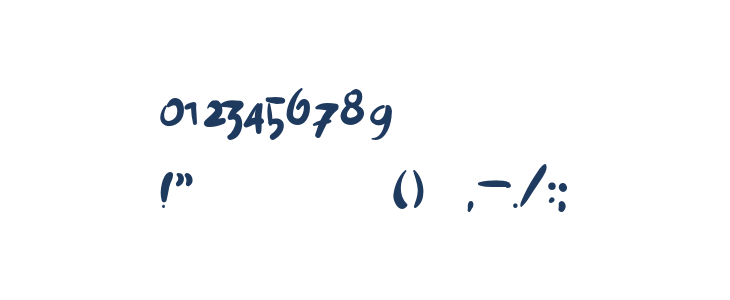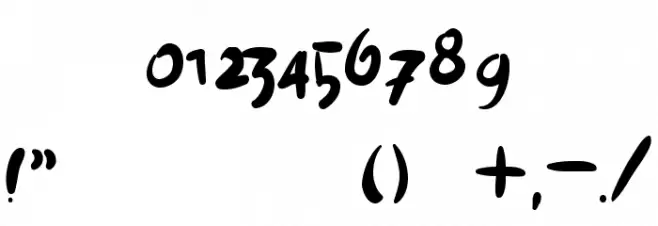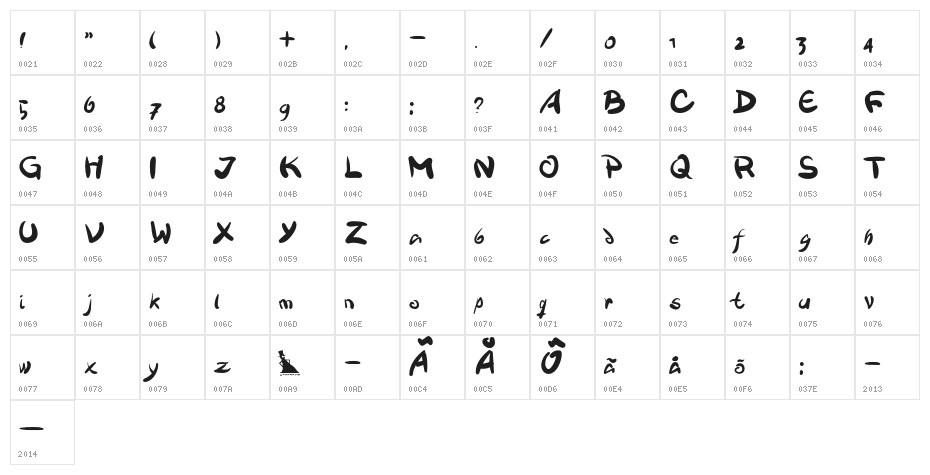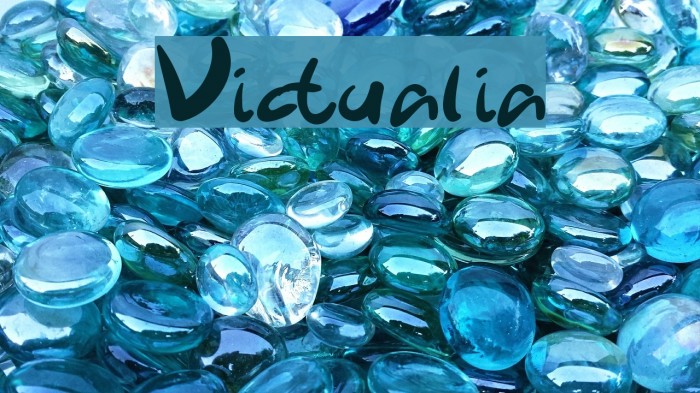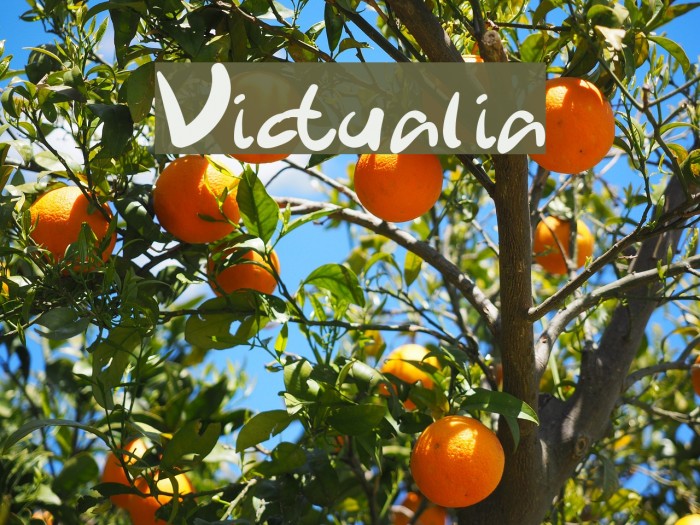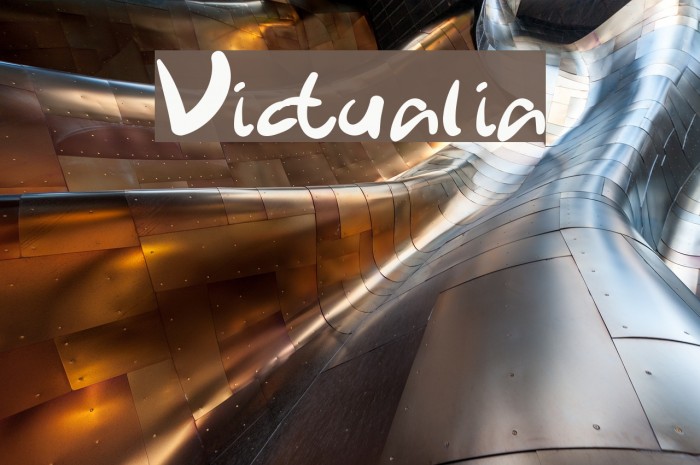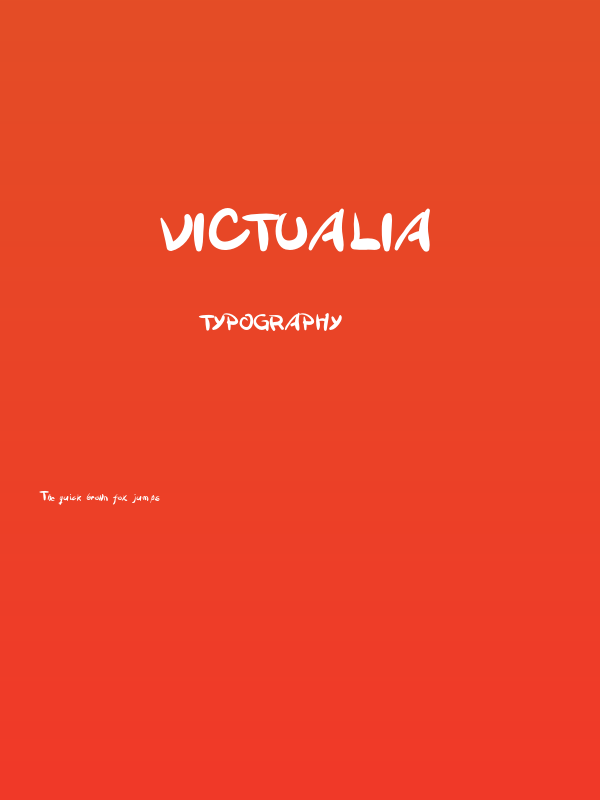
Victualia Font
Victualia Description
This font exhibits a bold and dynamic style with a handwritten appearance. The characters are slightly slanted, giving a sense of motion and energy. The strokes are thick and rounded, contributing to a playful and informal look. The uppercase and lowercase letters maintain a consistent style, with the uppercase being more pronounced. Numbers and special characters follow the same aesthetic, ensuring uniformity across all glyphs. The overall design is expressive, making it suitable for creative and artistic projects.
A bold, dynamic handwritten font with thick, rounded strokes from Uncategorized fonts.
- Proposed Projects: Ideal for creative projects such as posters, invitations, and branding materials that require a playful and informal touch.